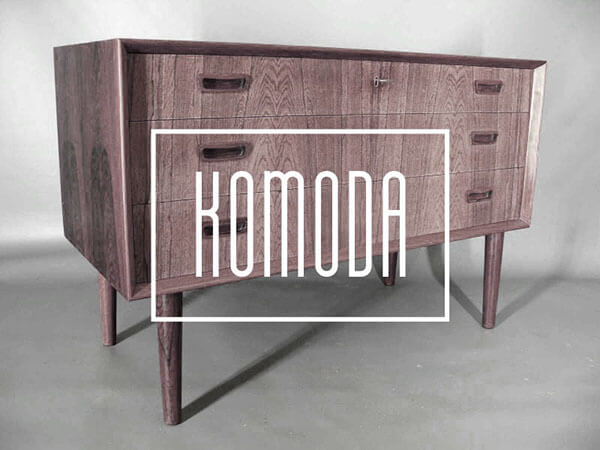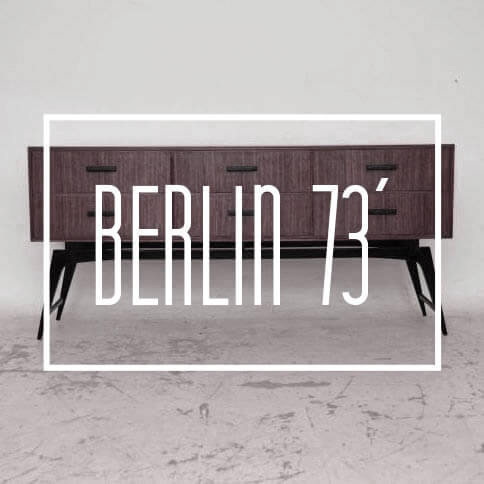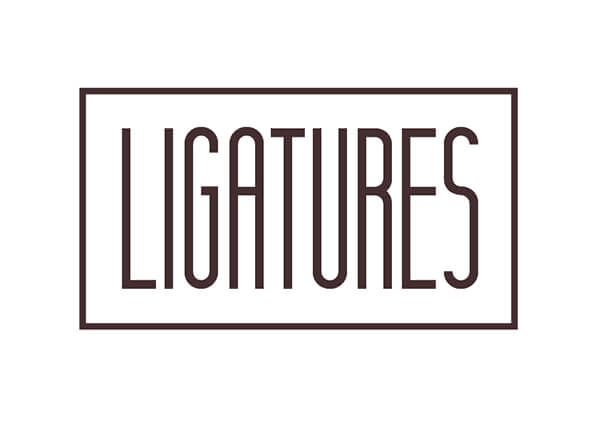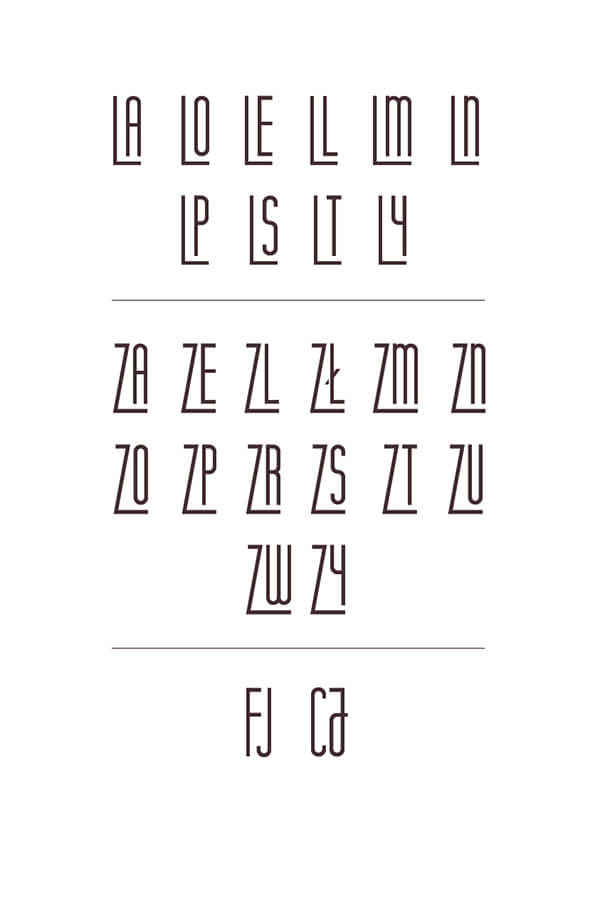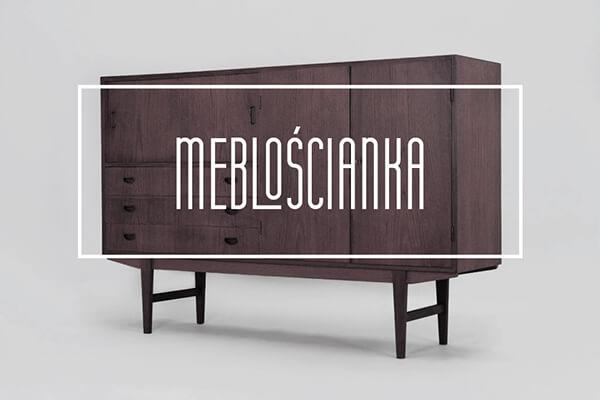
KOMODA free font
Komoda free font looks inspired in the clean 70’s minimalist wave when less became more, the author puts is focus on the furniture design where he probably peeked the name for the font, Komoda (Polish) means commode (in English) or cómoda (in Portuguese). Well it’s a great work a very complete sans serif font free for personal and commercial use, ideal for editorial headlines, posters, logos. It comes with some really cool ligatures as well, another must have.